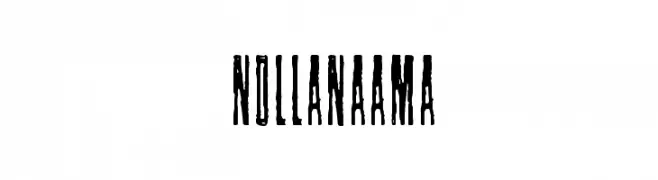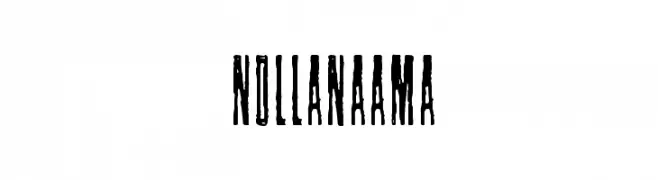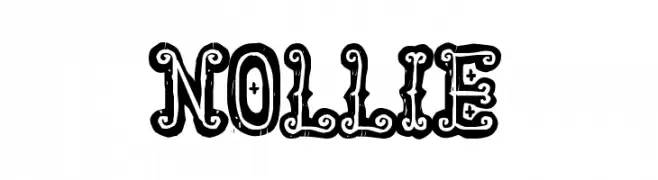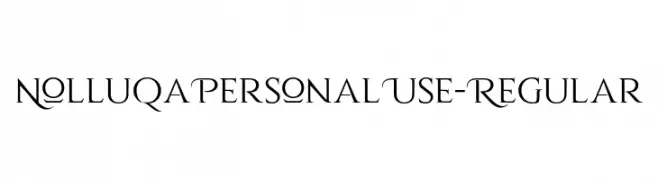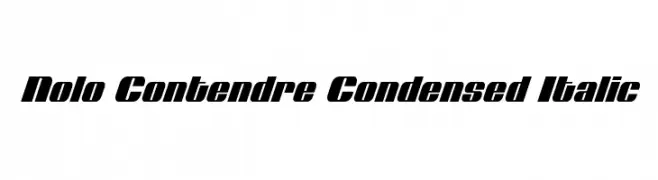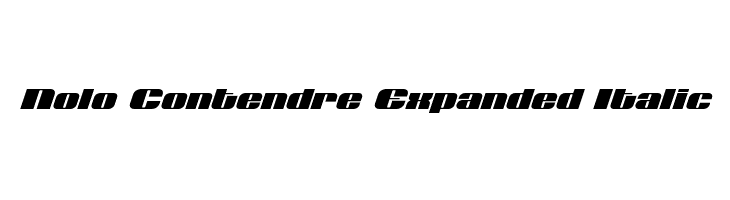
A bold, distressed font with a vintage, rugged style.
A rugged, distressed font with tall, narrow characters and a vintage, textured appearance.
A bold, hand-drawn font with an expressive and dynamic style.
A bold, decorative font with intricate detailing and a whimsical, vintage style.
An elegant serif font with flowing strokes and artistic flair.
A bold, geometric font with a strong, industrial aesthetic.
A bold, 3D font with strong outlines and a blocky, geometric style.
A bold, 3D italic font with outlined characters for a dynamic, modern look.
A bold, condensed typeface with a geometric, blocky style.
A bold, condensed, and italicized font with a modern and dynamic style.